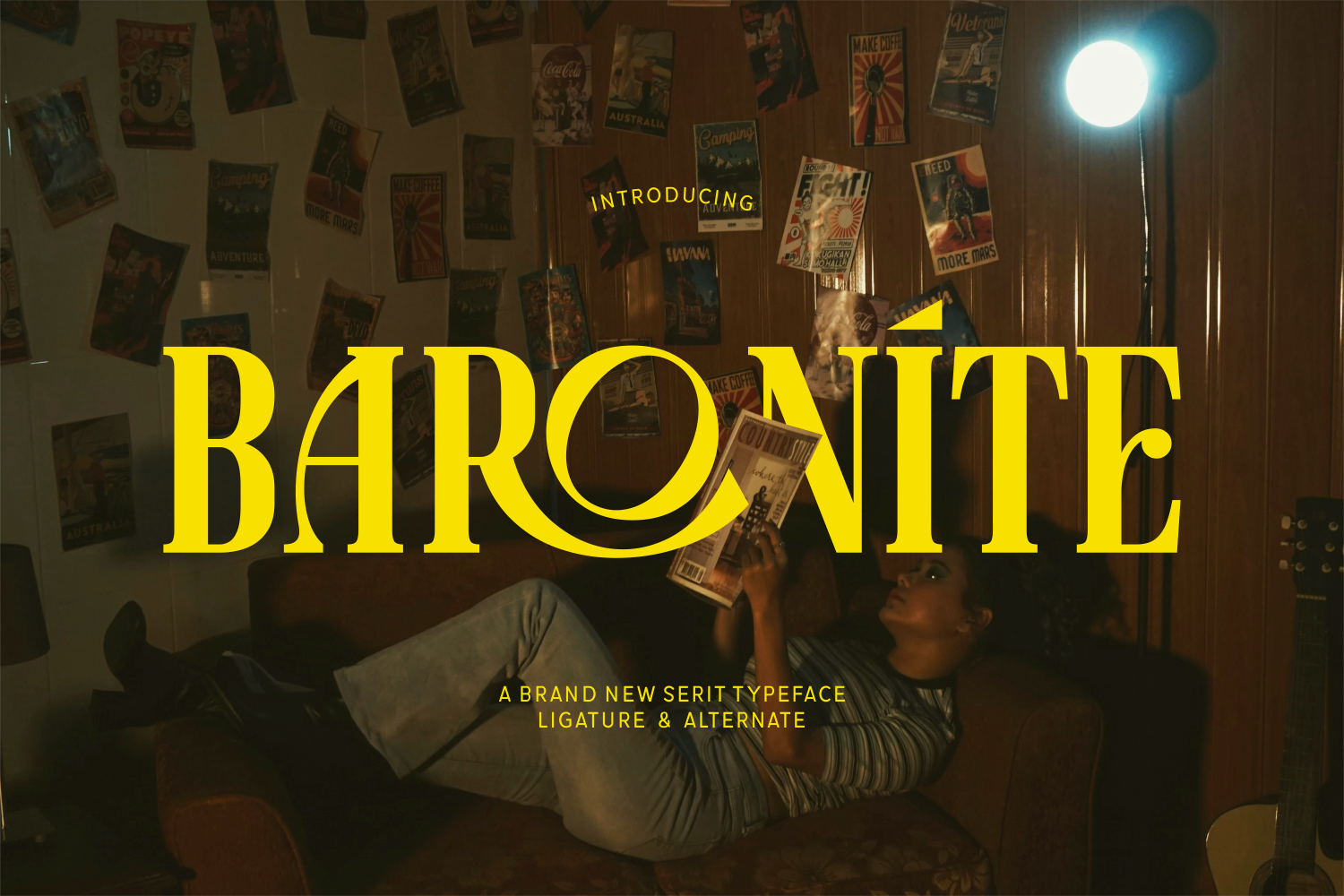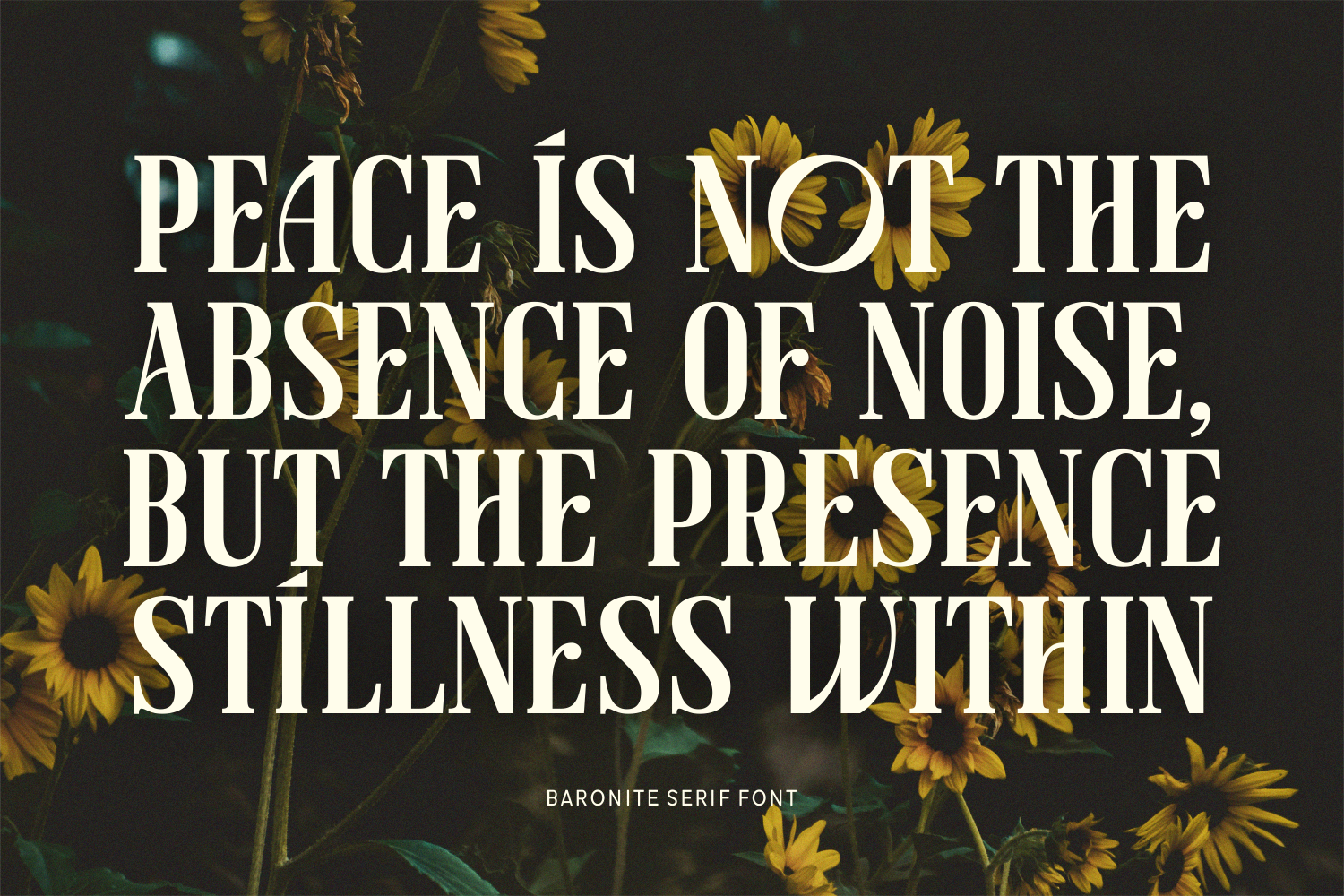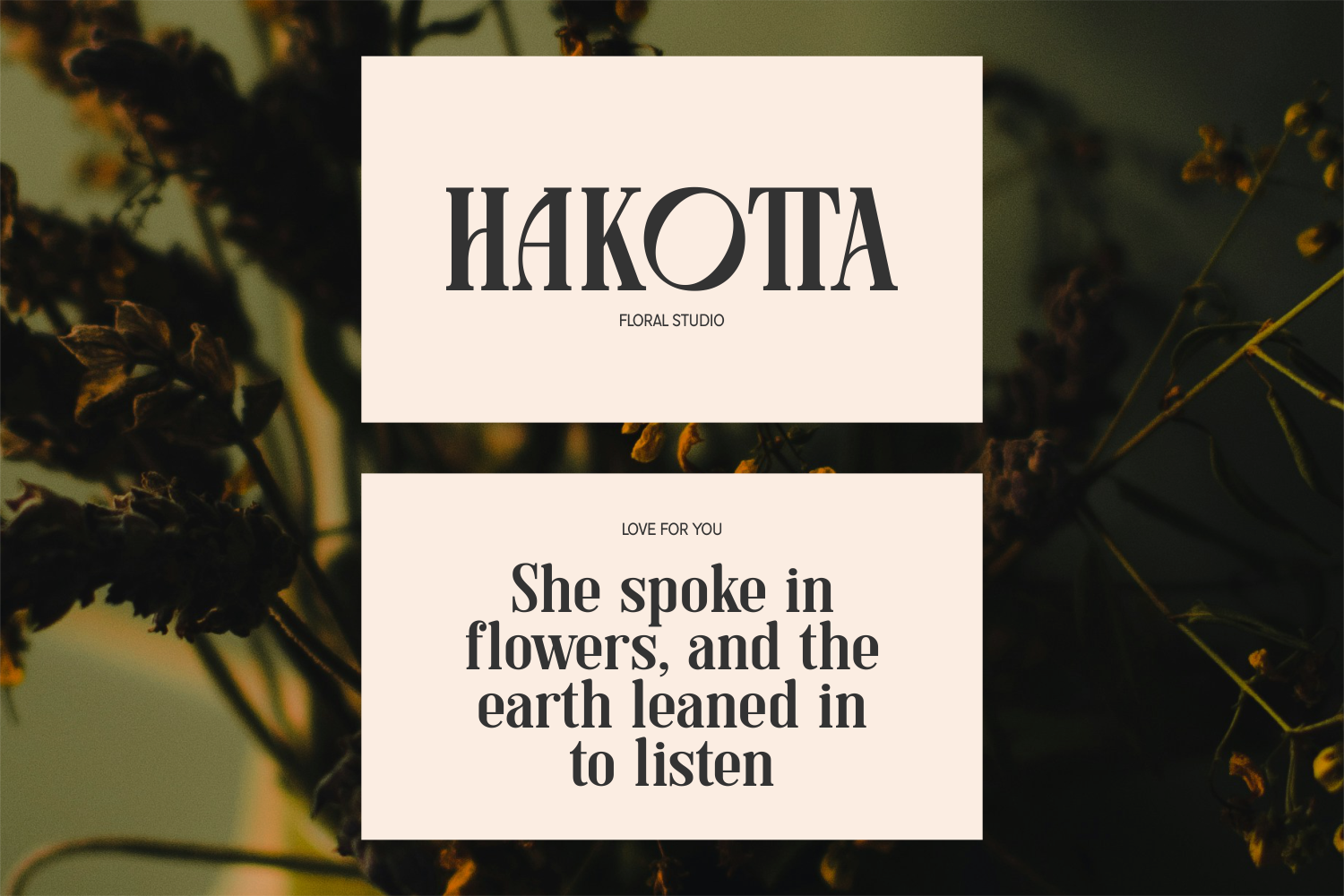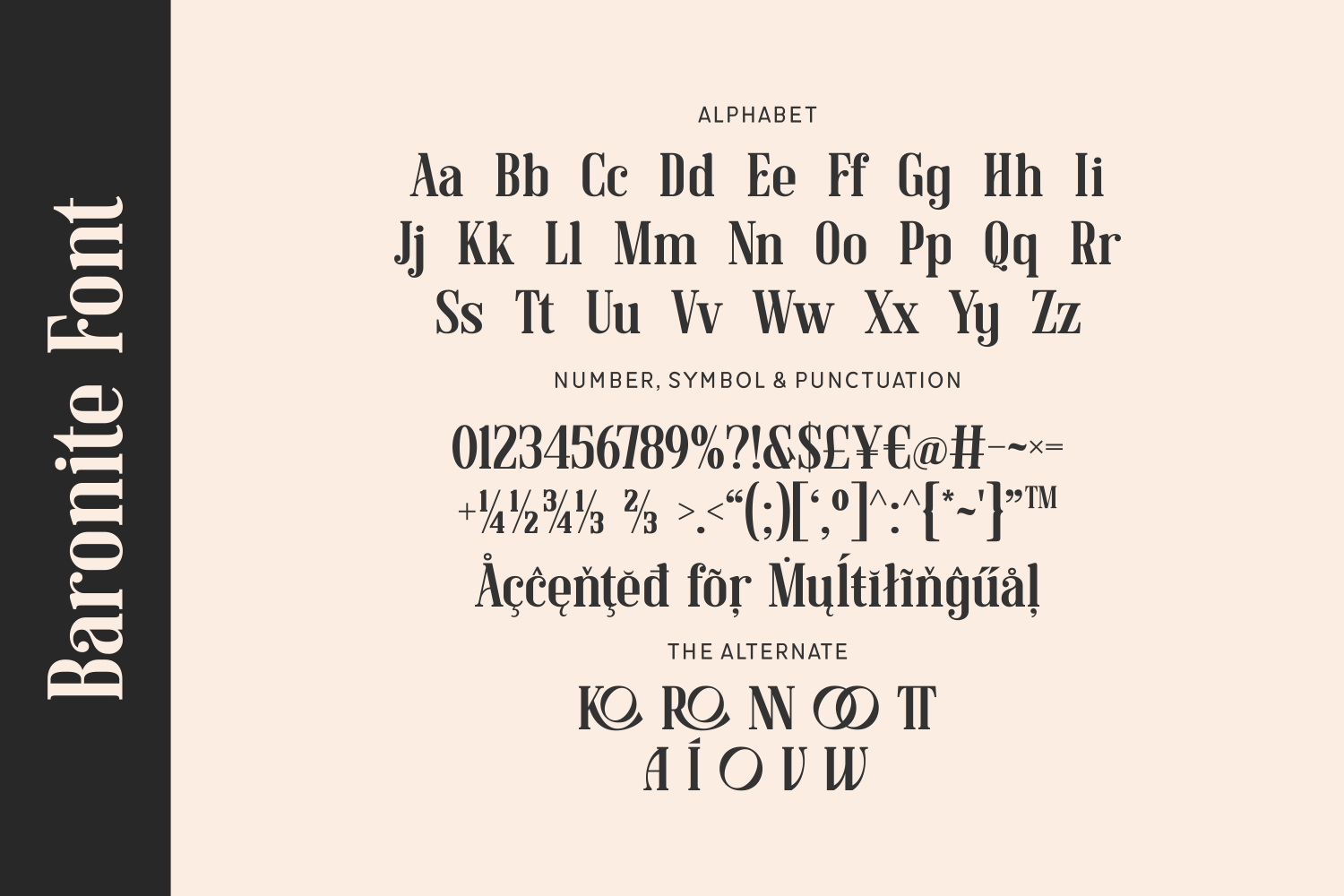
Baronite is a bold and expressive serif font that fuses vintage charm with modern sophistication. Featuring dramatic curves, unique ligatures, and a striking alternate set, Baronite is built to captivate. With a subtle retro vibe and artistic edge, Baronite is ideal for creative professionals looking to leave a lasting impression.